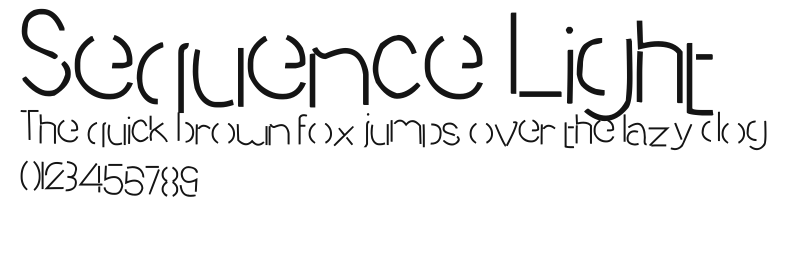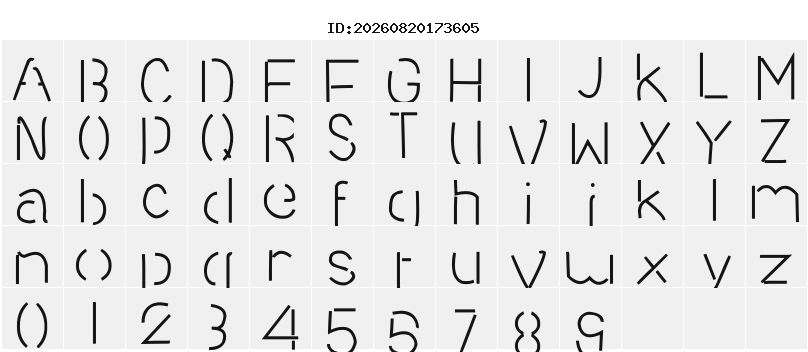
• Font Name: Sequence Light
• Full Font Name: Sequence Light
About Sequence Light.ttf
Sequence Light.ttf is a modern, elegant sans-serif font designed for ultimate readability and visual harmony. Perfect for branding, headlines, web design, and print materials.